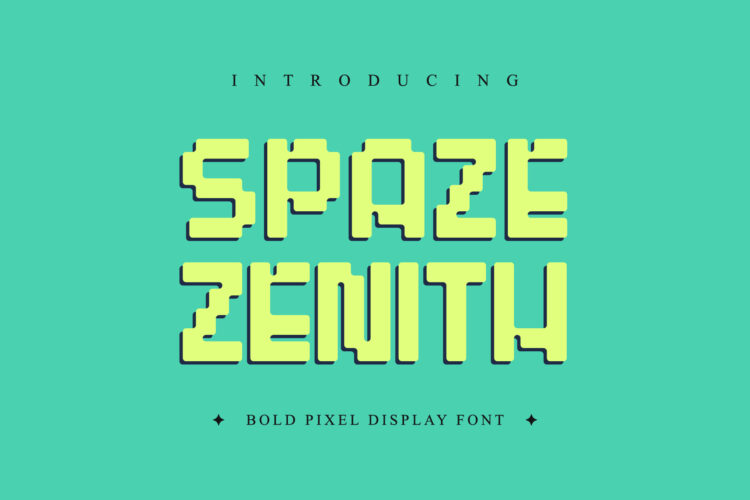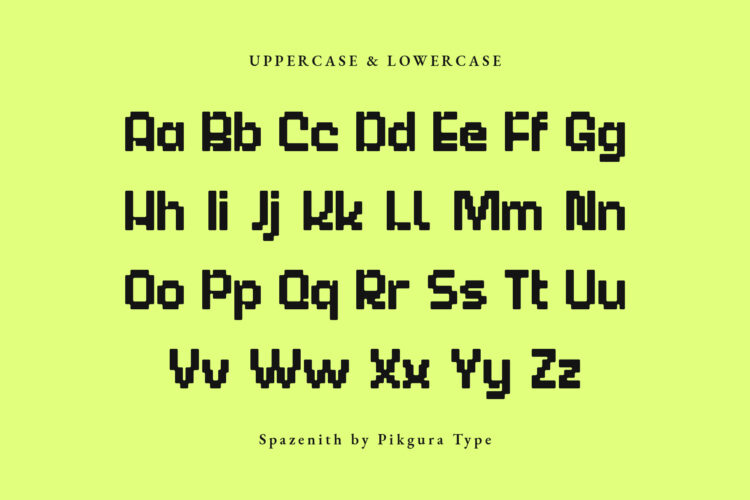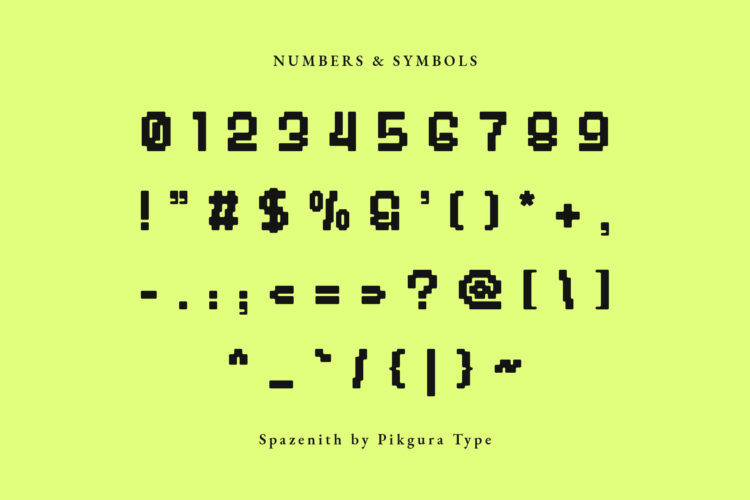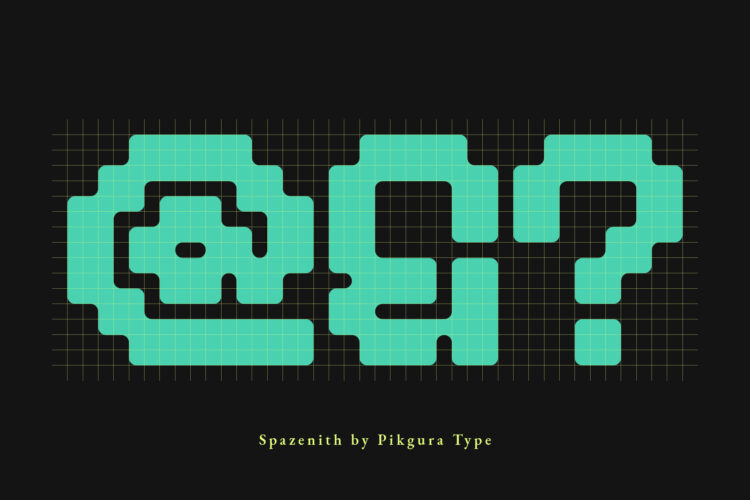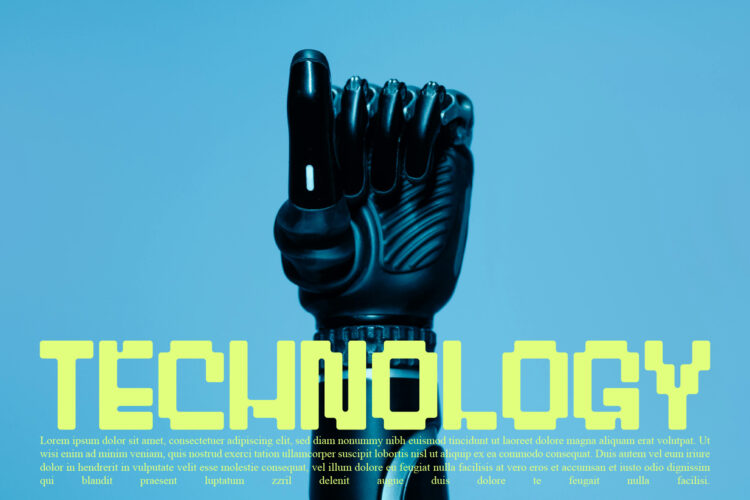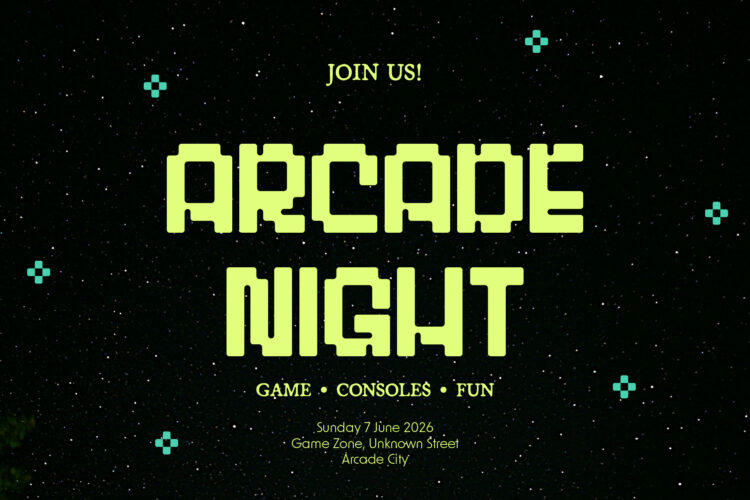
Space Zenith is a playful pixel display font designed to bring bold character and retro digital charm to your designs. With its chunky pixel forms, soft rounded edges, and standout personality, this font is perfect for projects that need a fun and memorable look.
Features:
• Complete alphabet (uppercase & lowercase)
• Numbers
• Basic punctuation
• Bold pixel display style